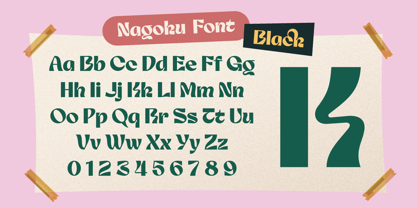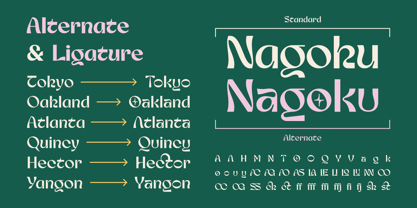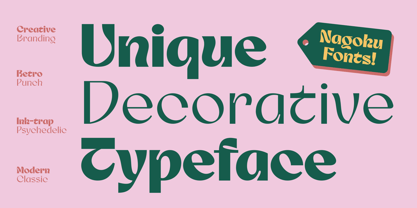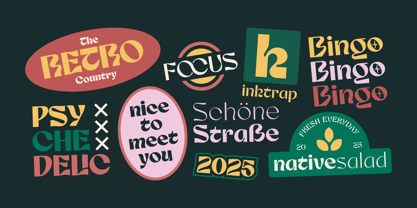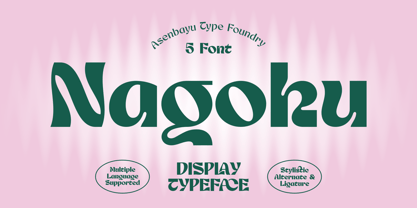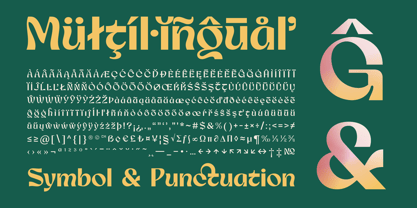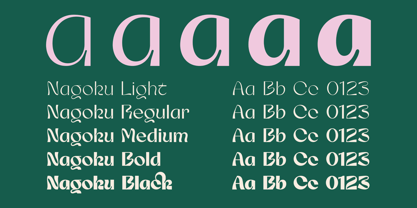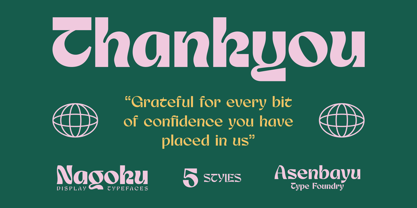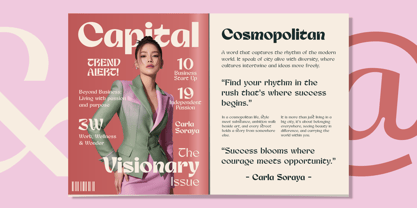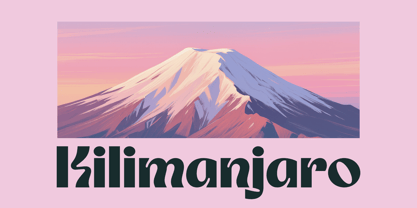
Nagoku
by Asenbayu
The Nagoku Font Family was designed by Bayu Noor Witarsa and published by Asenbayu. Nagoku contains 5 styles and family package options.
Nagoku is a decorative display font that captures the essence of retro design with a modern interpretation. Its soft inktrap details and smooth geometric shapes create a distinctive rhythm, giving each letterform a unique and expressive flow. Drawing inspiration from vintage poster typography of the ’60s and ’70s, Nagoku blends nostalgic charm with contemporary aesthetics. The inktrap structure not only enhances readability but also adds a tactile, crafted feel to the typeface, making it suitable for both digital and print applications. Making it perfect for logos, headlines, packaging, and editorial art that demand attention. Nagoku font features: 5 weights, standard glyph, stylistic alternates, stylistic ligatures, symbol, punctuation and multiple languages supported.